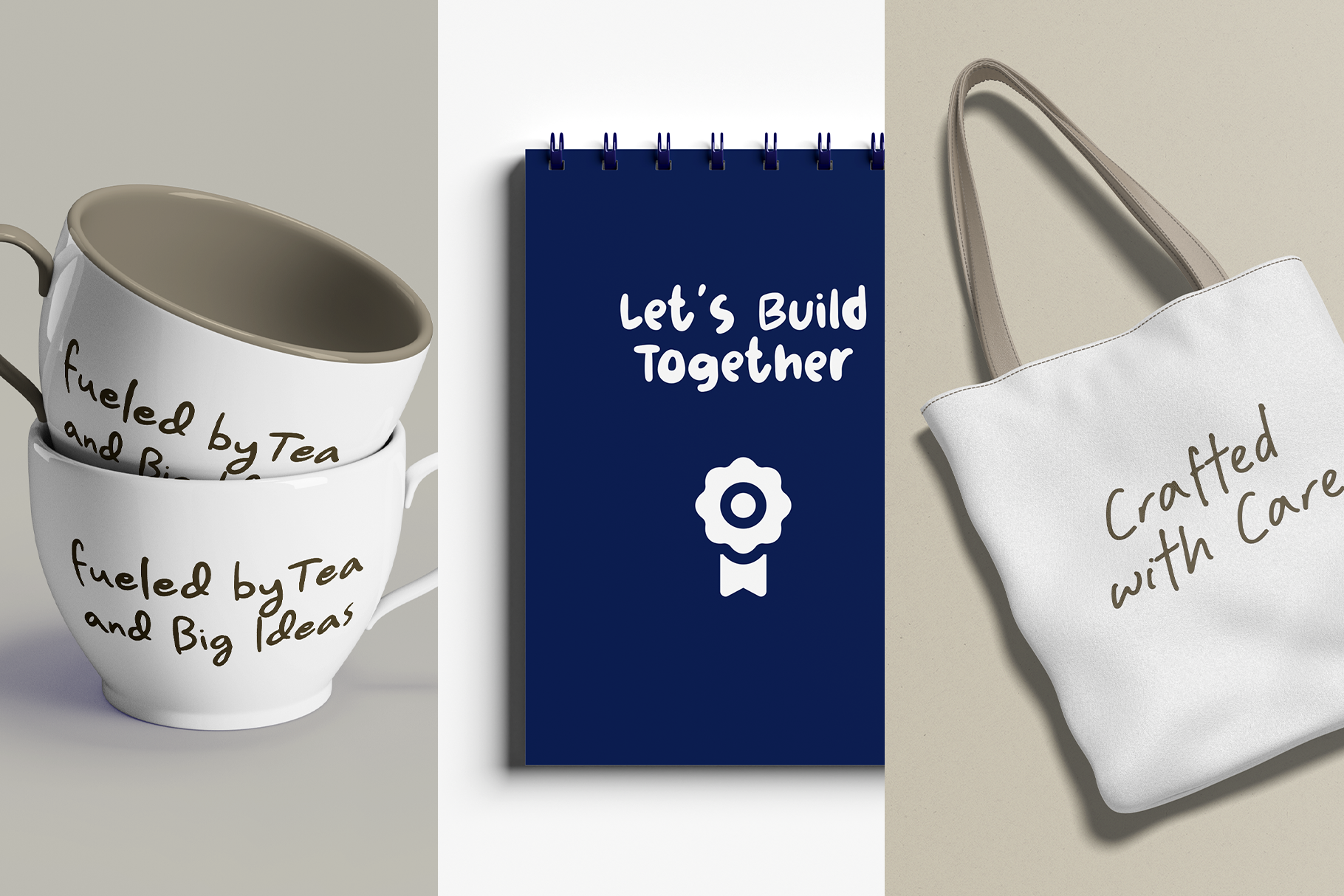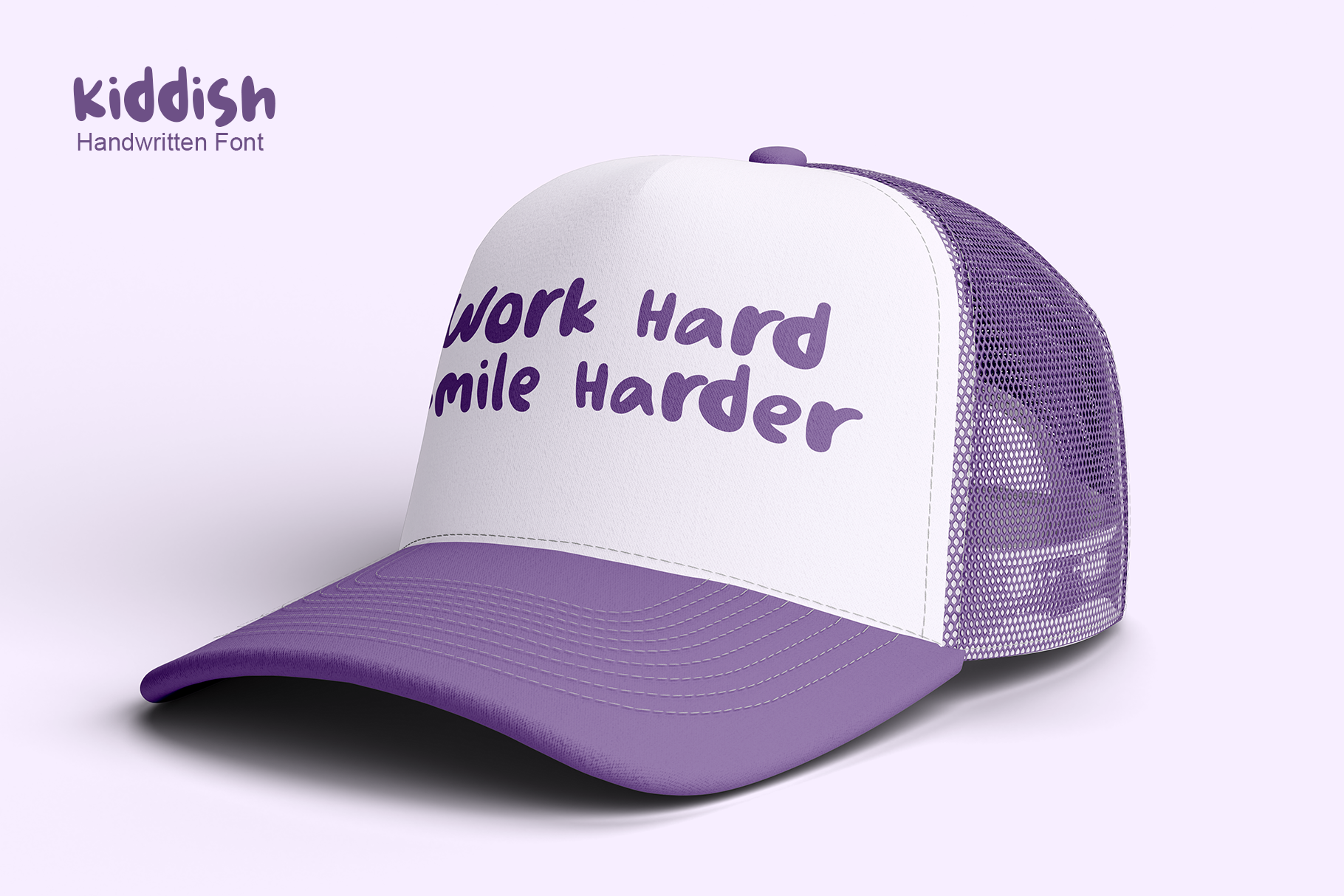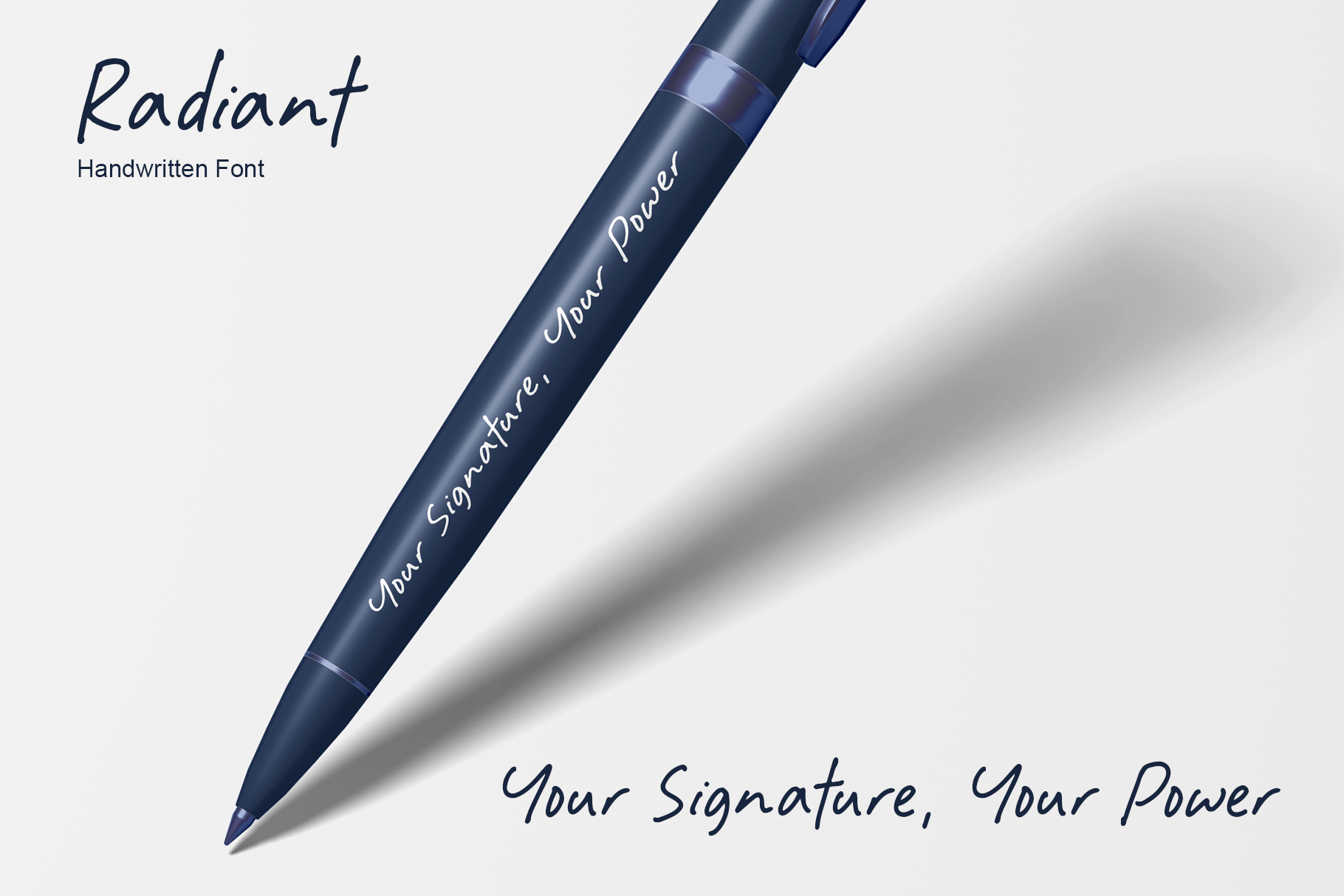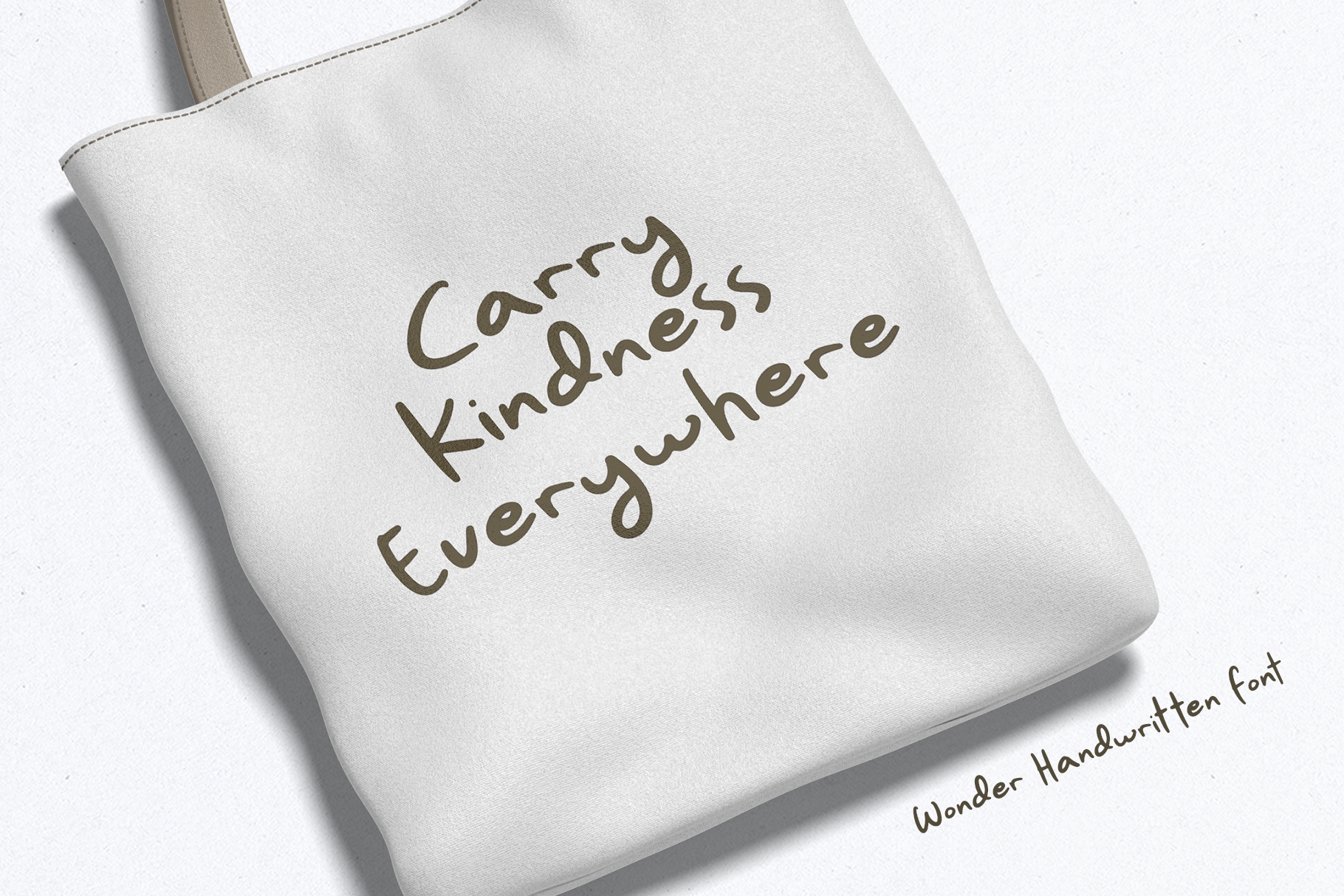
Designing High-Quality Corporate Gifts with Nice Handwriting Fonts
Corporate gifts may seem like a small part of business, but they are important in customer relationships. Adding customized texts with nice handwriting fonts could contribute to a customer’s impression of your brand. Find out how to plan corporate gifts and ideas to customize them with stylish texts.
Why Are High-Quality Corporate Gifts Important?
Corporate gifting is a long-standing business practice and part of strategies for maintaining good relationships. They are given to clients and customers as appreciation, such as opening a new account, upgrading a subscription, or a loyalty reward.
With thoughtful gifts and souvenirs, customers or clients can get a positive impression of your business. They will also feel appreciated and are more likely to promote the brand or company to others.
Finally, corporate gifts have additional benefits for marketing purposes. For example, adding a customized text (like a business motto or catchphrase) to the gift means more people will know about your business. A nice handwriting font or other notable visual elements, like a customized logo, will make your gifts more memorable.
Corporate Gift Ideas for Modern Business Places
Most established companies have standard corporate gifts, often related to their businesses. Banks, consulting firms, insurance companies, and other “formal” businesses may choose classic, neutral gifts. Journals, tumblers, umbrellas, pens, and mugs are the typical traditional gifts and “safe” options.
You can create unique or personalized gifts depending on your business or customer type. A tea or coffee company could create a special storage box full of little samples of premium products, complete with a cup and spoon. You can also create a themed package, such as a box with a premium journal, insulated cup, customized pen, and exclusive bookmarker.
How to Incorporate Nice Handwriting Fonts on Corporate Gifts
Nice handwriting fonts can help personalize your texts, creating an even more positive impression of your gifts.
Make sure you choose the font type that reflects your business. Formal businesses like banks or insurance companies are the least ideal candidates for handwriting fonts. However, you can utilize them for less formal texts, like fun slogans or products for younger customers.
Choose a font with good readability even when viewed from a certain distance. The gift recipients should not squint just to read the texts. They should also be legible and not create confusion.
Nice Handwriting Fonts to Adorn Corporate Gifts
We have several good recommendations for adding nice handwriting fonts to corporate gifts.
Wonder
Wonder is a freeform handwritten form with a subtle, chic air. The strokes are effortless and neat, but still with a casual elegance. Perfect for adorning corporate gifts using slogans or personalized messages for clients and premium customers.
Wonder is a “safe” font for corporate gifts like mugs, spiral notebooks, tote bags, and water bottles. You can use it to promote businesses like coffee shops, arts and crafts, and design.
Radiant
Radiant is a nice handwriting font suitable for gifts from formal businesses. Despite not looking overly formal, Radiant has a subtle, sophisticated air. The style resembles a stylish handwriting seen during a formal event or in a work journal.
Use Radiant to promote formal businesses like banks, consulting firms, and finance businesses. The neat font is modern and dynamic without reducing the formality.
Kiddish
Thanks to its bold and playful strokes, Kiddish is perfect as a merchandise font. It is youthful enough to adorn gifts for children and teenagers, but not too childish. It also has good readability and is legible enough to be put on various gifts.
Use Kiddish to adorn products like water bottles, shirts, hats, bags, and other standard corporate gifts. You can also use this font to promote a special event that has its own taglines.
You can make your corporate gifts memorable, even with the most standard objects, using nice handwriting fonts. Add customized or personalized texts to make the recipients happy and cared for.